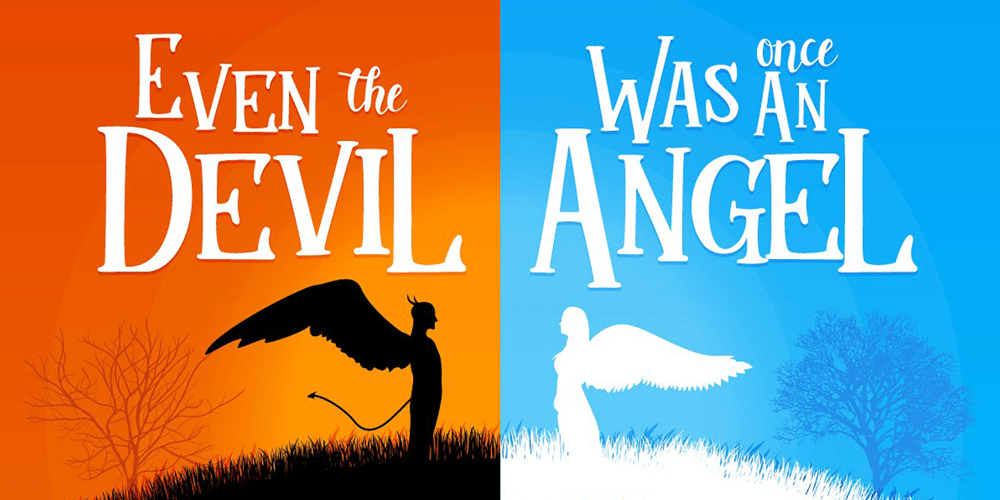
Mukadua Font Family was designed by Hendry Juanda and published by Letterhend. Mukadua contains 2 styles and family package options. Mukadua consists of two fonts: serif and script. Mukadua means “two-face”, and so it can be used in a happy and fun concept, but still looks great in dark, horror, or scary concepts! The main font is a serif font type with unique bouncing baseline, includes upper and lowercase characters, punctuation, numerals, and multilingual support. It also has OpenType features like stylistic alternates and ligatures.